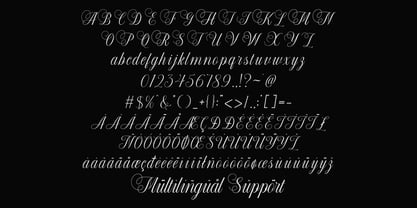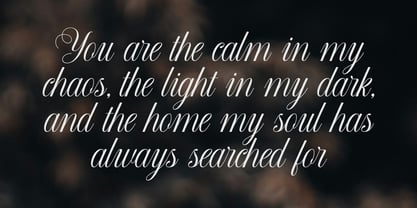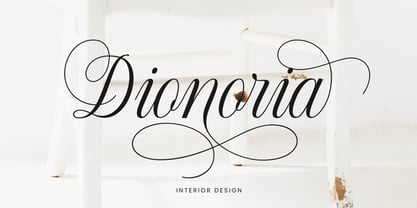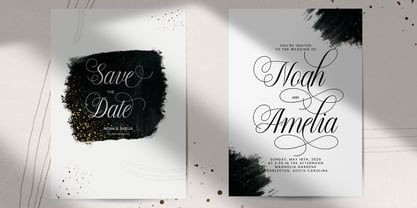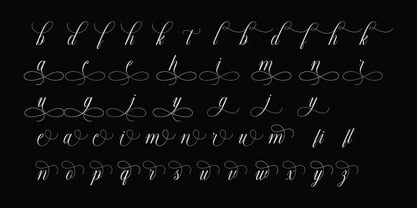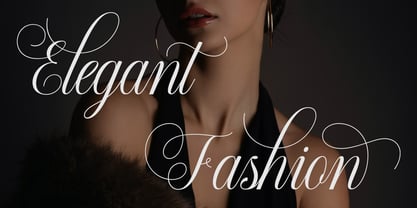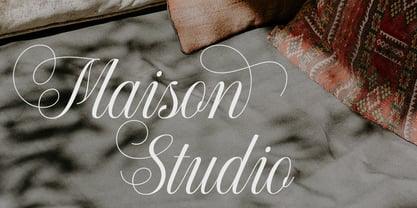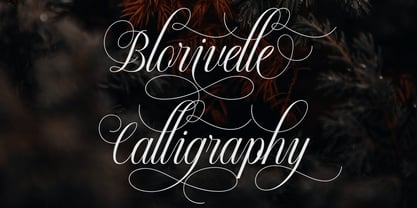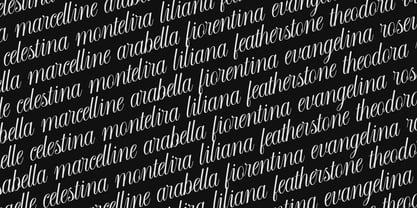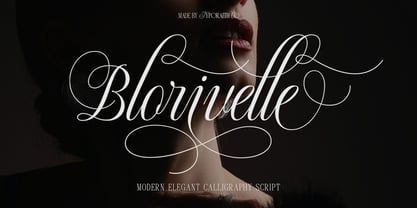
Blorivelle
The Blorivelle Font Family was designed by Rendy Riyananda and published by Typoraith Co. Blorivelle contains 1 styles. More about this family
Introducing Blorivelle, a modern calligraphy script font that exudes elegance, luxury, and timeless beauty. Crafted with graceful curves and sophisticated swashes, Blorivelle is perfect for creating high-end designs that demand attention.
Whether you're working on wedding invitations, branding, fashion editorials, logo designs, or luxury packaging, Blorivelle brings a refined and feminine touch that instantly elevates your work.
- Uppercase & lowercase letters
- Numerals & punctuation
- Multilingual support
- Beautiful swashes & stylistic alternates